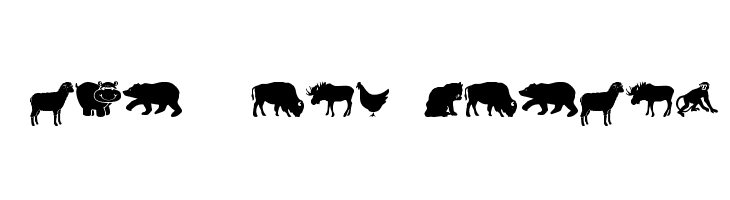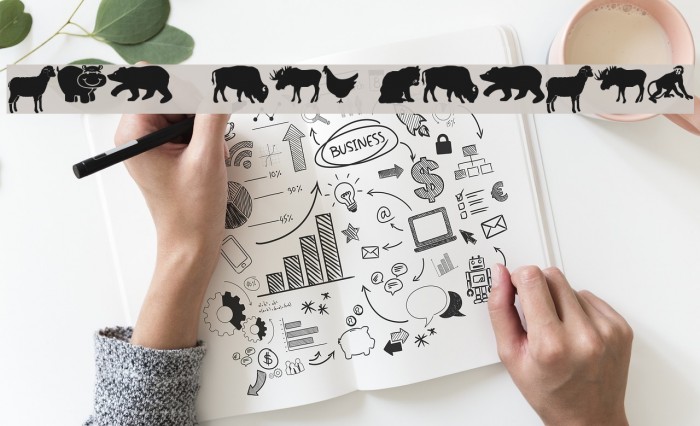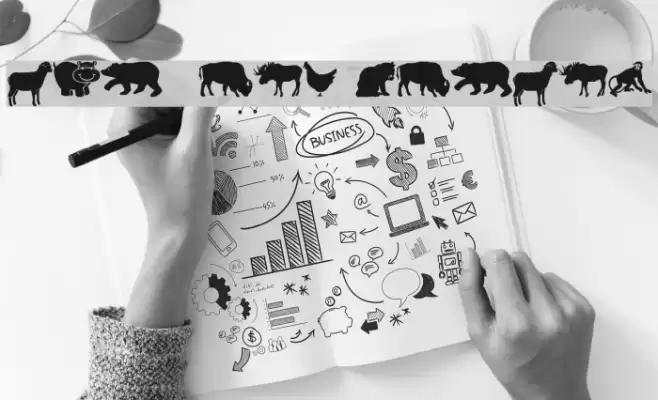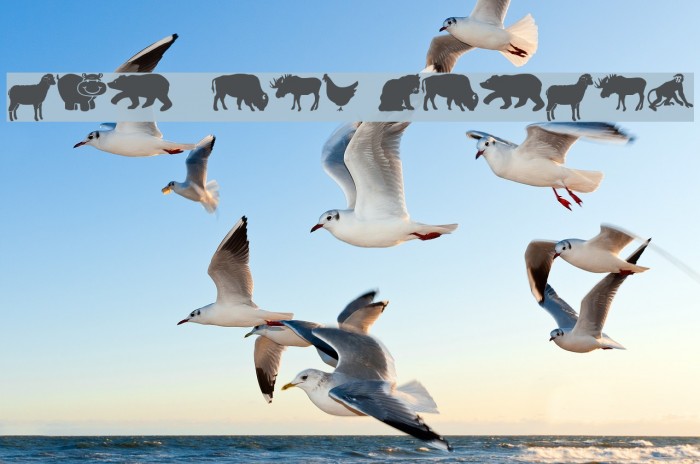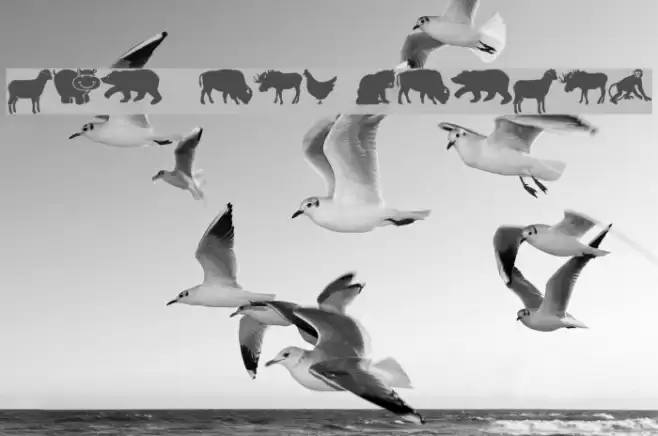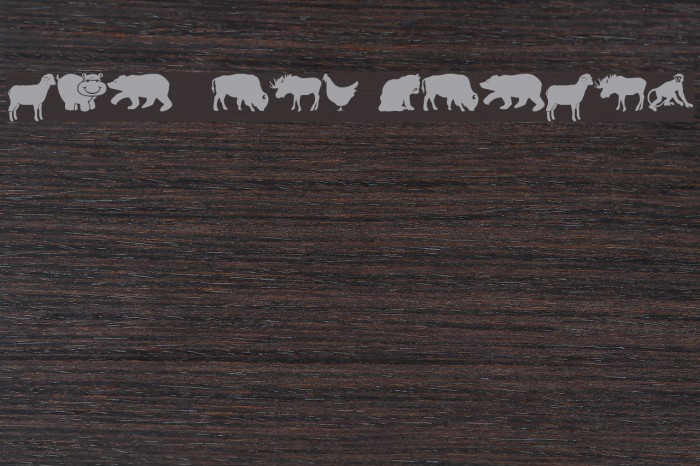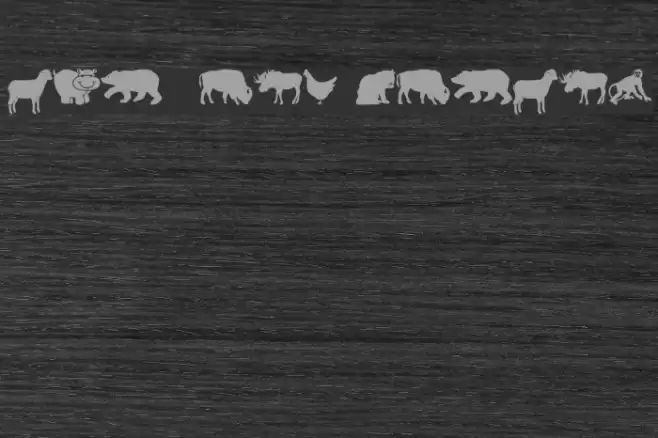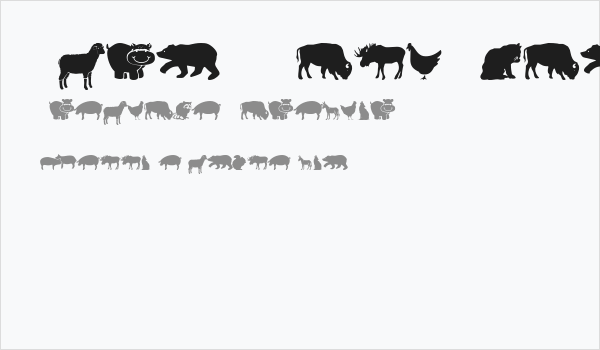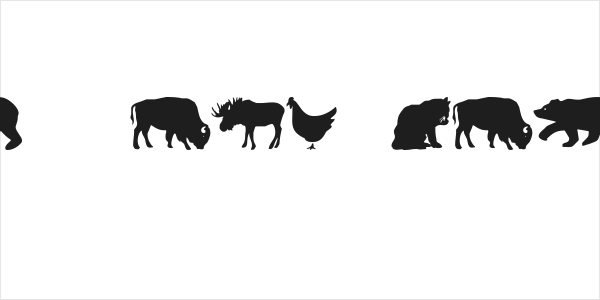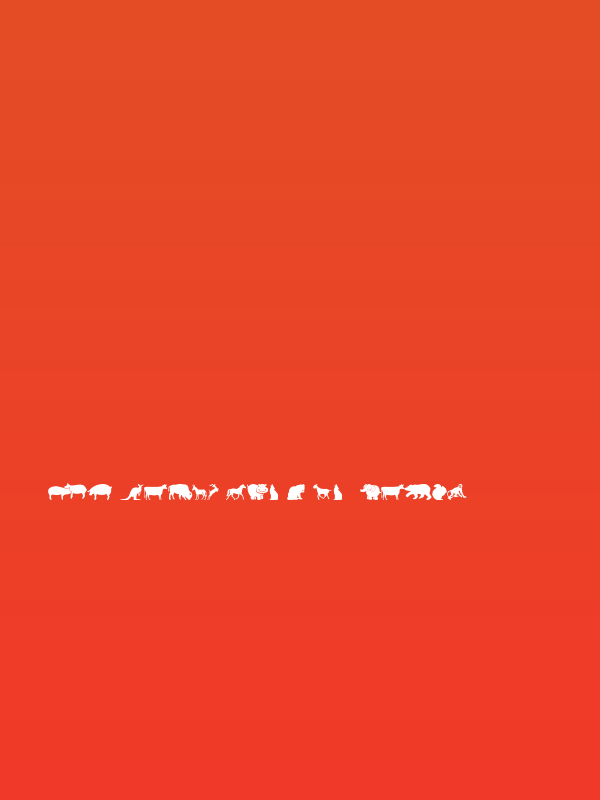
Farm & Wild Animals Font
Farm & Wild Animals Description
A collection of animal silhouettes in a pictogram style, featuring both farm and wild animals. The shapes are solid black with no internal detail, offering a playful and easily recognizable appearance. The forms are consistent in weight and style, with some animals rendered in a more cartoonish manner.
| Overall Style | Decorative, Playful |
| Use Case | Icons, Logos, Educational graphics, Signage |
| Proposed Projects | Educational materials, children's books, signage, infographics, branding for zoos or farms. |